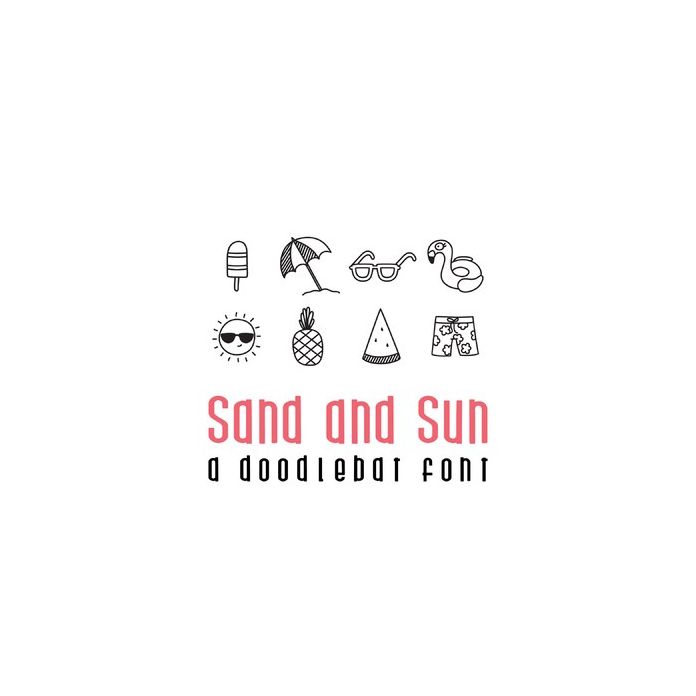
sun and sand doodlebat font
This fun doodlebat font features 26 beach related doodles. Perfect for cards, gifts, decor, crafts, scrap book pages, planner stickers and more!